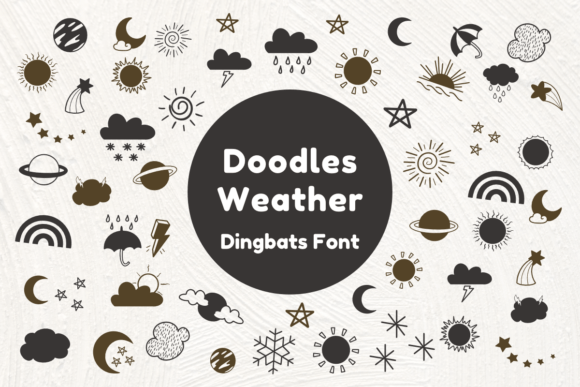
Doodles Weather Font: Add a Fun Touch to Your Creative Projects
Doodles Weather Font is a unique and fun dingbats font that can add a creative twist to your projects. In this article, we’ll explore the features and benefits of using Doodles Weather Font, and how it can enhance your designs.
What is Doodles Weather Font?
Doodles Weather Font is a dingbats font that features a collection of weather-themed icons, including clouds, suns, moons, and raindrops. The font is designed to be fun and playful, making it perfect for creative projects that require a lighthearted touch.
Features of Doodles Weather Font
Doodles Weather Font has several features that make it a great addition to your design toolkit. Some of its key features include:
- Unique and Fun Designs: The font features a range of unique and fun weather-themed icons that can add a creative touch to your designs.
- High-Quality Images: The font features high-quality images that are clear and crisp, making them perfect for use in a variety of design projects.
Benefits of Using Doodles Weather Font
Using Doodles Weather Font can bring several benefits to your design projects. Some of the benefits include:
- Adds a Creative Touch: The font’s unique and fun designs can add a creative touch to your projects, making them stand out from the crowd.
- Enhances Visual Appeal: The font’s high-quality images can enhance the visual appeal of your designs, making them more engaging and attention-grabbing.
Examples of Doodles Weather Font in Use
Doodles Weather Font can be used in a variety of design projects, including:
- Social Media Graphics: Use the font to create fun and engaging social media graphics, such as weather forecasts or seasonal greetings.
- Web Design: Use the font to add a creative touch to your website design, such as in a weather widget or a blog post.
- Print Design: Use the font to create fun and eye-catching print designs, such as flyers, brochures, or posters.
- Infographics: Use the font to create informative and engaging infographics, such as weather forecasts or climate data.
Doodles Weather Font is a fun and unique dingbats font that can add a creative touch to your design projects. With its ease of use, high-quality images, and compatibility with most design software, it’s a great addition to any design toolkit.
Whether you’re a designer, artist, or DIY enthusiast, Doodles Weather Font is a great resource to have in your creative arsenal. So why not give it a try and see how it can enhance your designs?